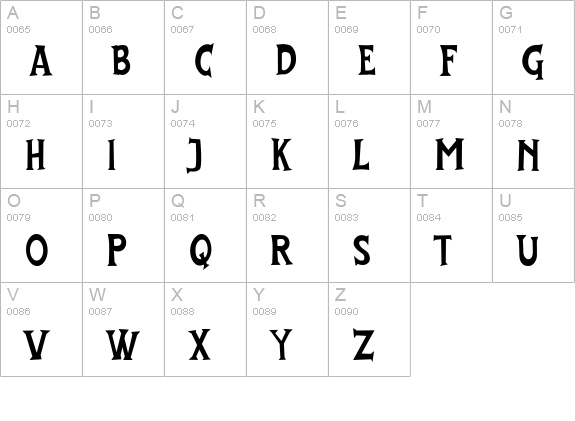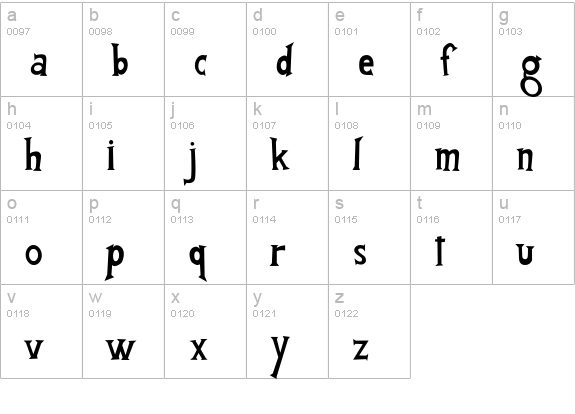
FantastiFont Font Details
Introducing FantastiFont, a captivating and versatile font that will elevate your designs to the next level! With its unique blend of elegance and playfulness, FantastiFont is perfect for a wide range of projects, from branding to social media graphics to invitations. This delightful font features a modern yet whimsical style that is sure to make your text pop. Whether you're crafting a logo for your business or creating eye-catching posters, FantastiFont is the perfect choice to add that extra touch of charm. Best of all, FantastiFont is completely free for personal and commercial use! You can easily download this fantastic font at FontsMarket.com and start using it in your projects right away. Don't miss out on this incredible opportunity to enhance your designs with the enchanting appeal of FantastiFont!